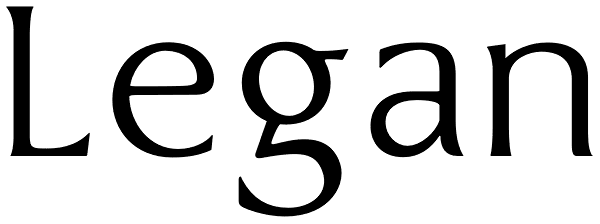
Legan
Legan is a font created by PeGGO Fonts, a very large typeface that follows the classical Trajan pattern, several geometrical proportions like root five, divine proportion (Golden Ratio), regular square, between other ones, same like Greek Trajan...